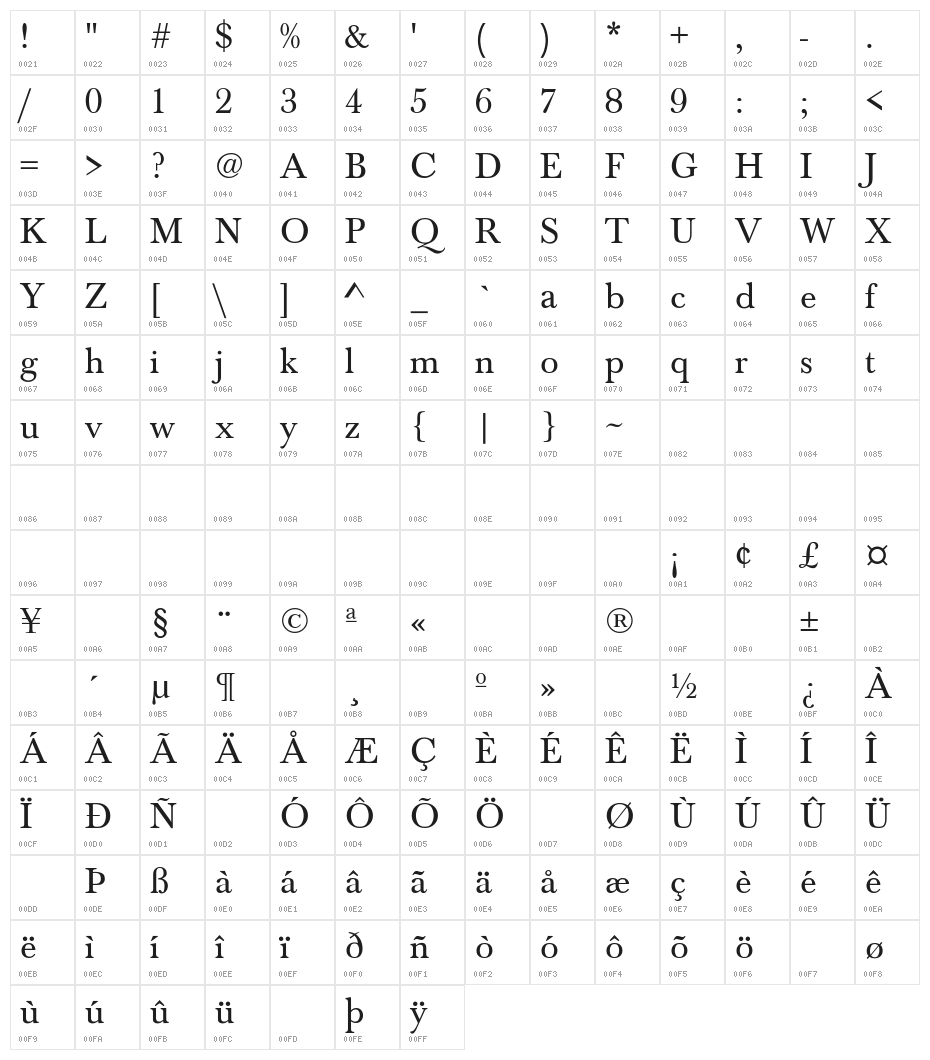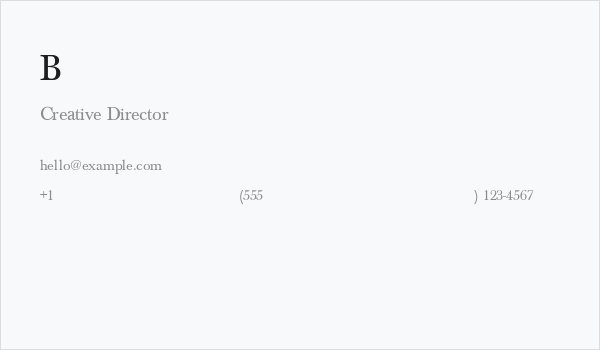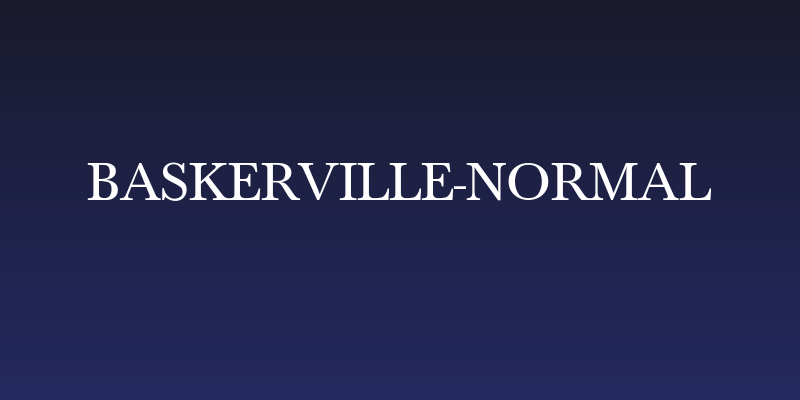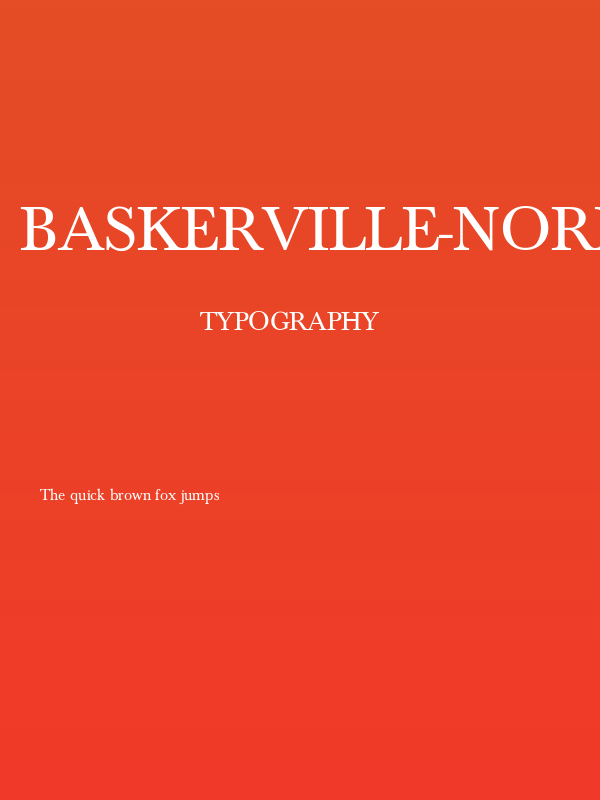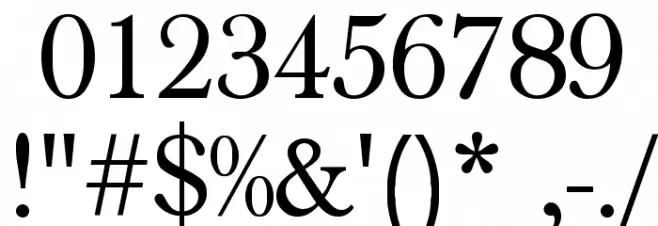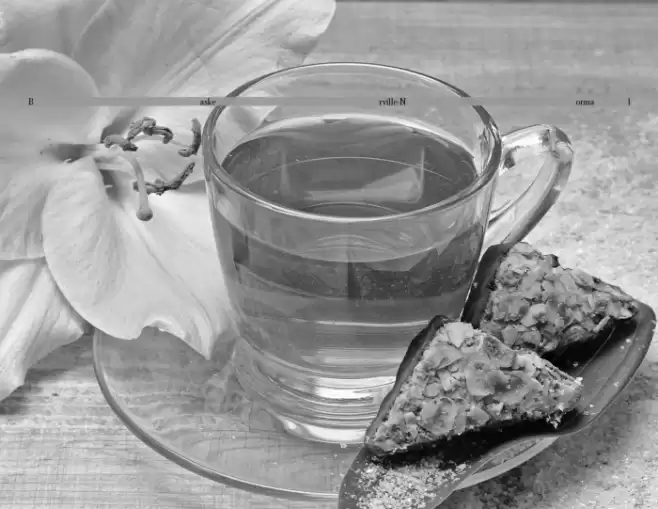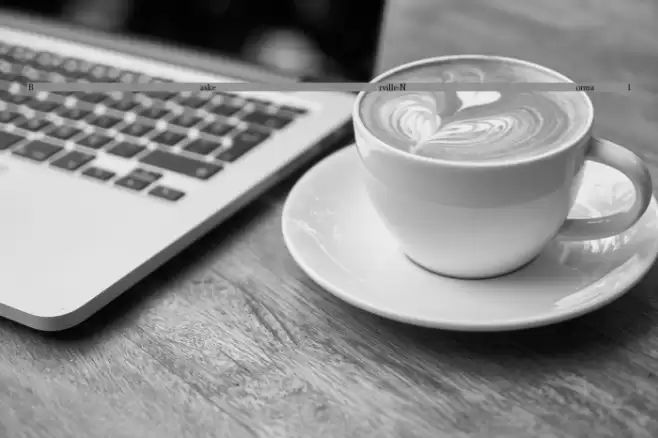
Baskerville-Normal Font
Baskerville-Normal Description
This font is a classic serif typeface known for its elegance and readability. It features high contrast between thick and thin strokes, with sharp, bracketed serifs that add a touch of sophistication. The letterforms are well-proportioned, with a slight vertical stress that enhances its traditional appearance. The uppercase letters are stately and commanding, while the lowercase letters are more delicate and refined. The numerals are clear and balanced, making them easy to read. This font exudes a timeless quality, making it suitable for a variety of formal and professional applications.
| Use Case | Body text, Headlines, Editorial design |
| Proposed Projects | Ideal for book typesetting, formal invitations, academic publications, and branding for luxury products. |